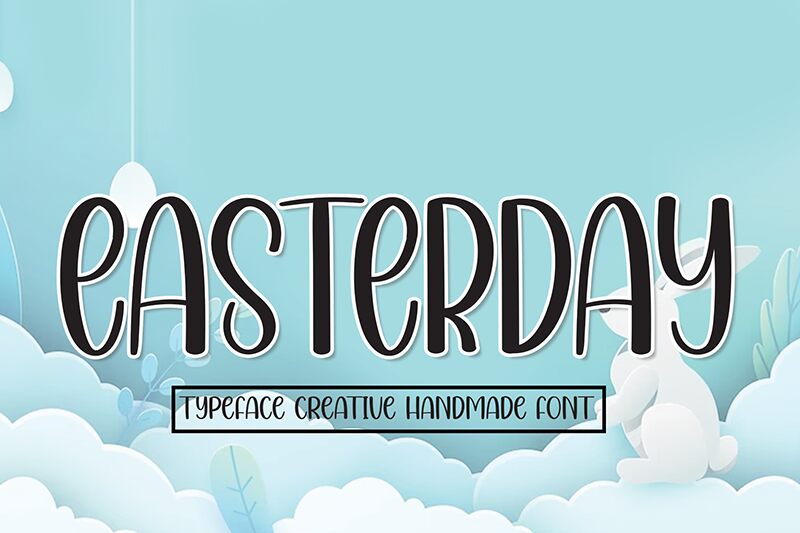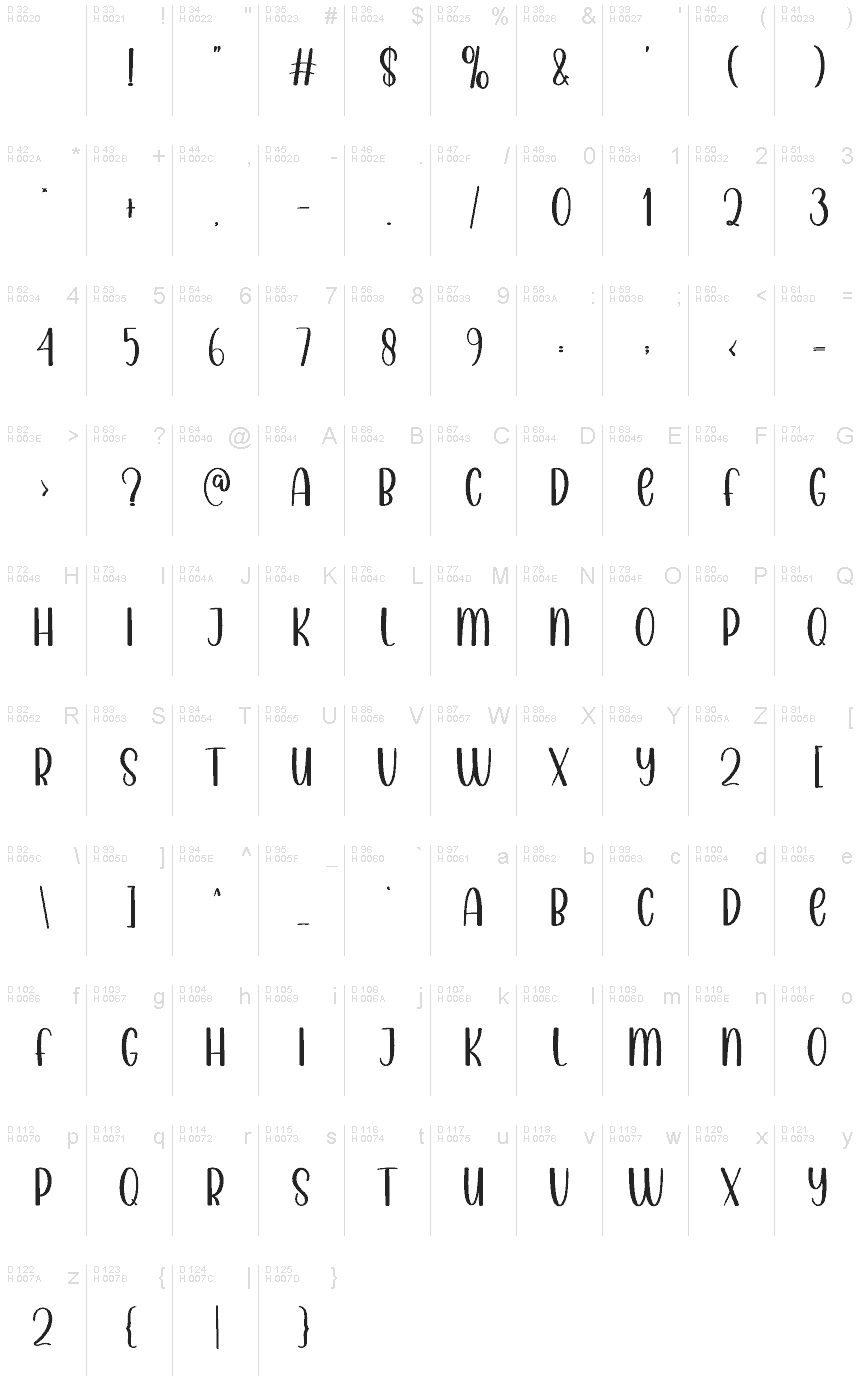
Easterday
Easterday font is an enchanting condensed handwritten typeface created by Andi Moz. Its whimsical and decorative style brings a modern touch to the traditional handwritten melody. Casual yet stylish with surprising details, this charming font is guaranteed to deliver fun to users who decide to display it in their projects.
Free, unique, and friendly, Easterday fits branding designs such as logo types and packaging labels. Use it as well for website headers or social media posts that require body attention and engagement. Lastly, consider integrating the font into your book covers or magazine pages where nothing short of luxury is acceptable.